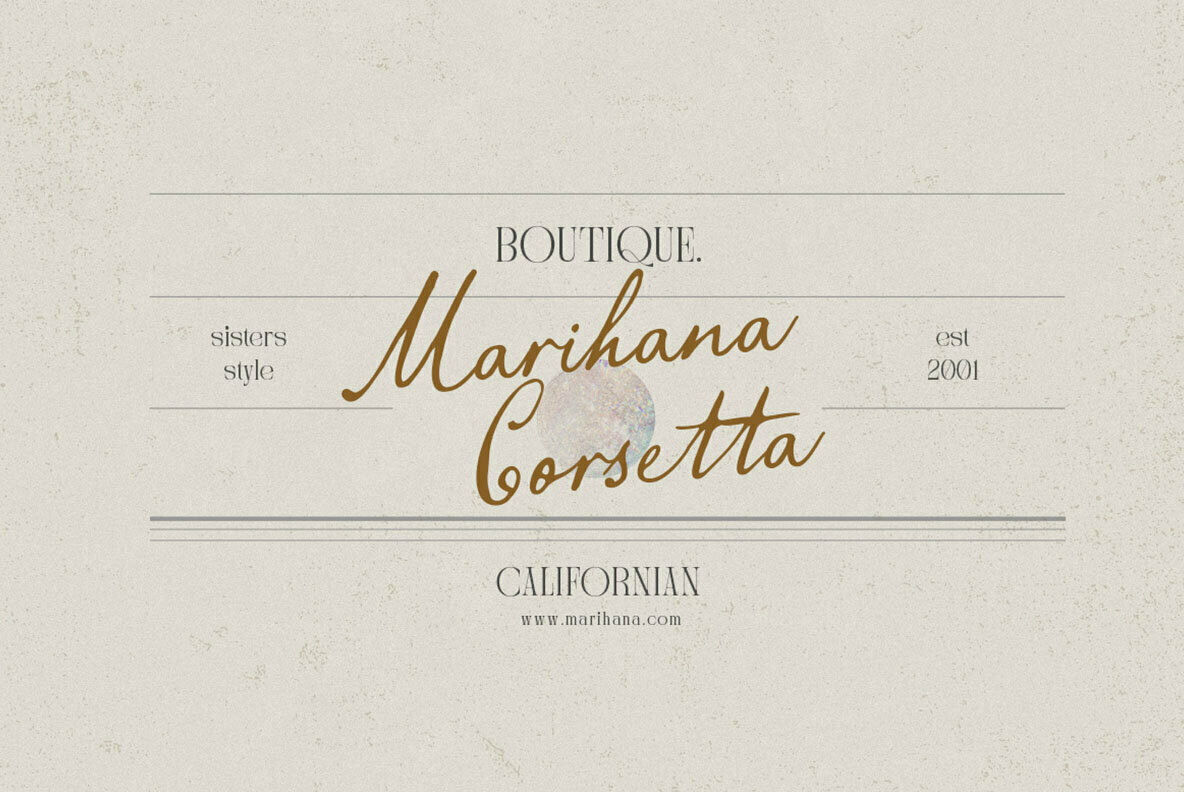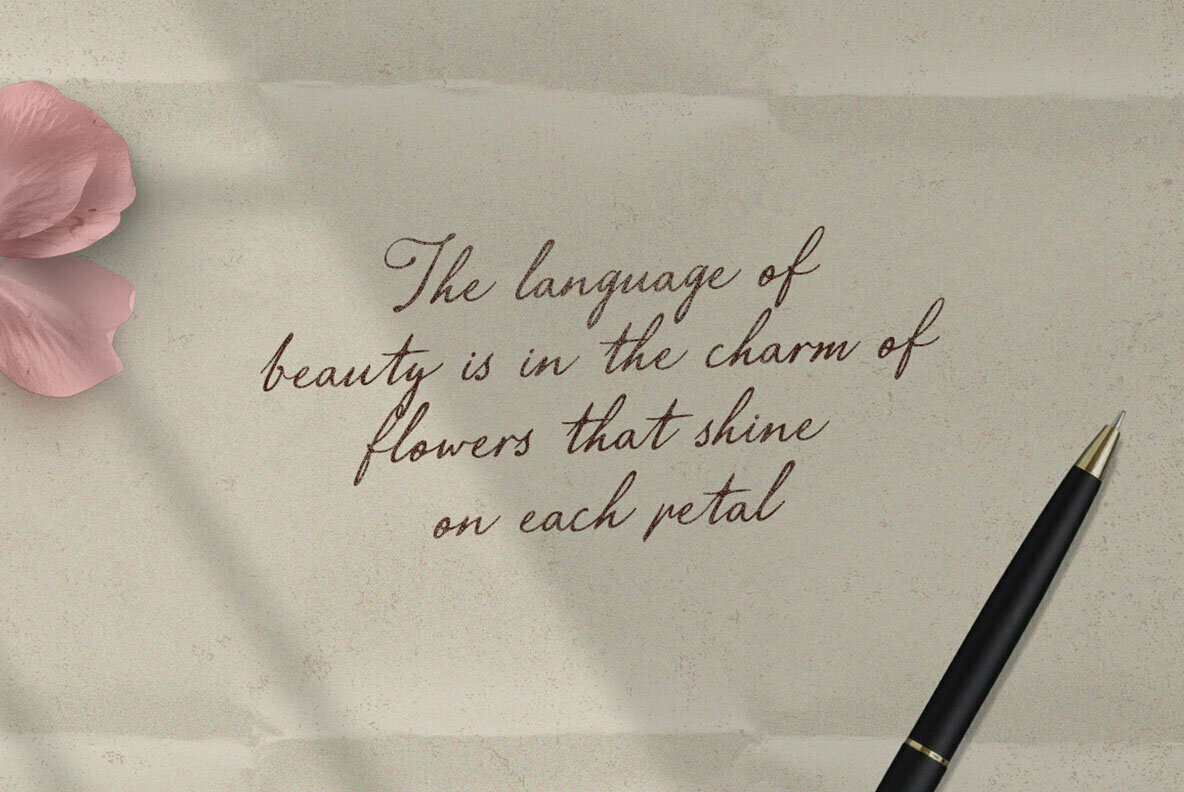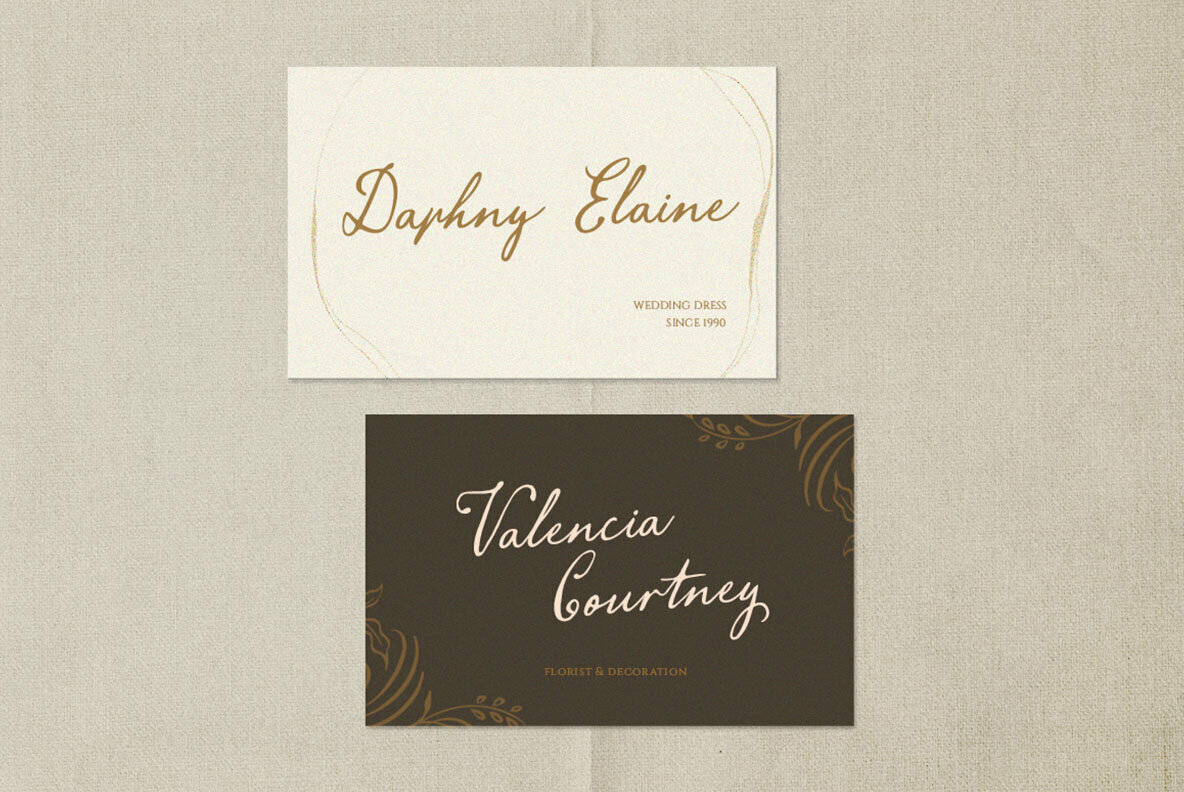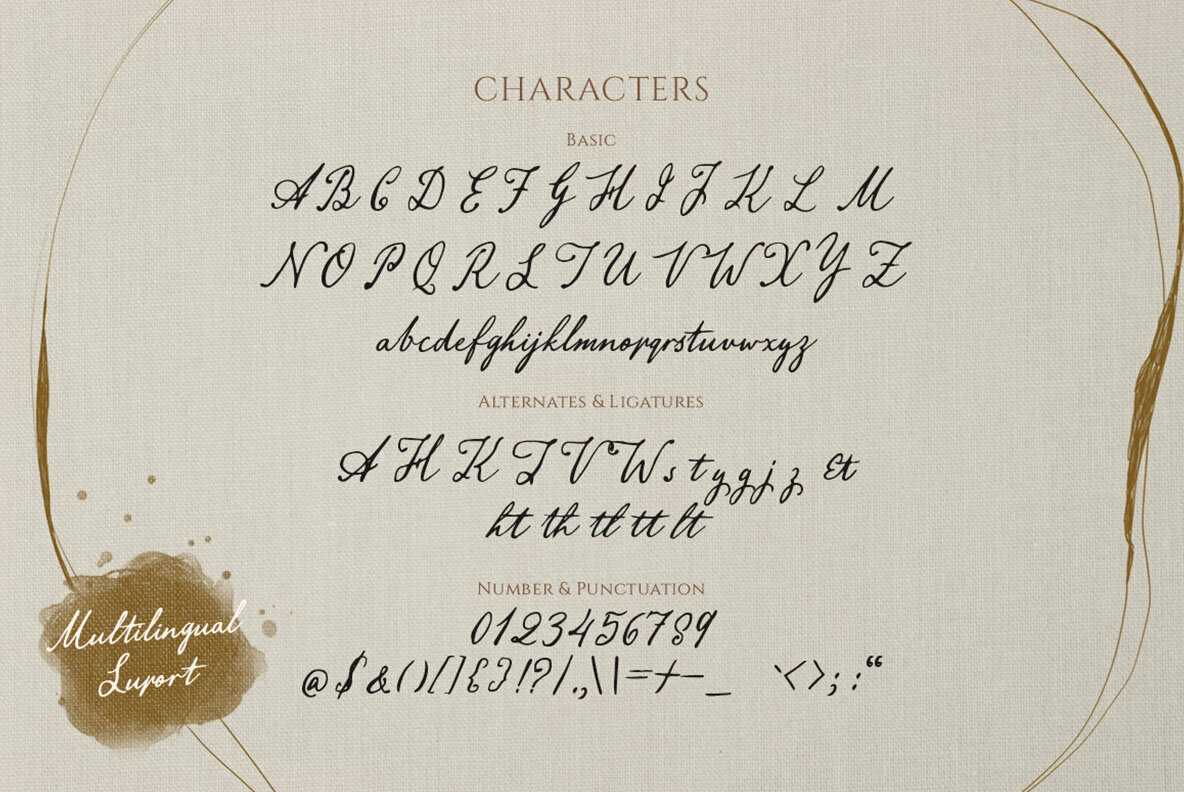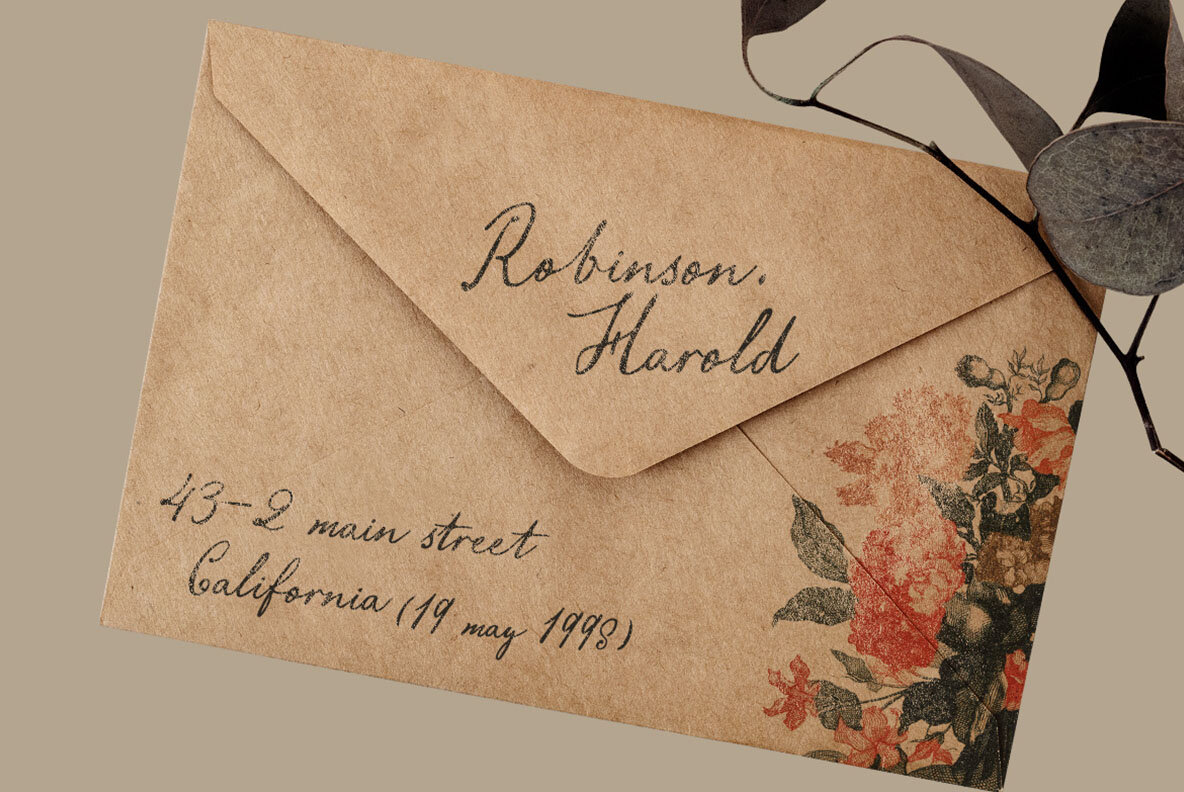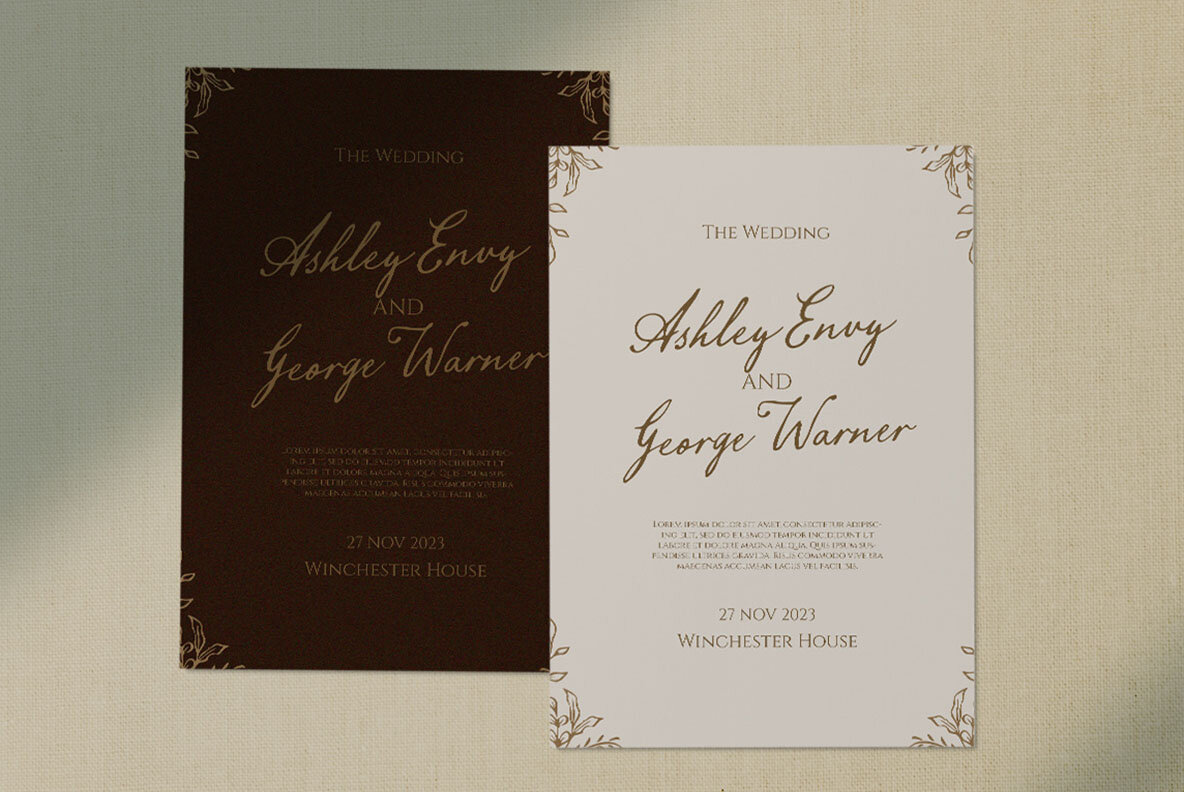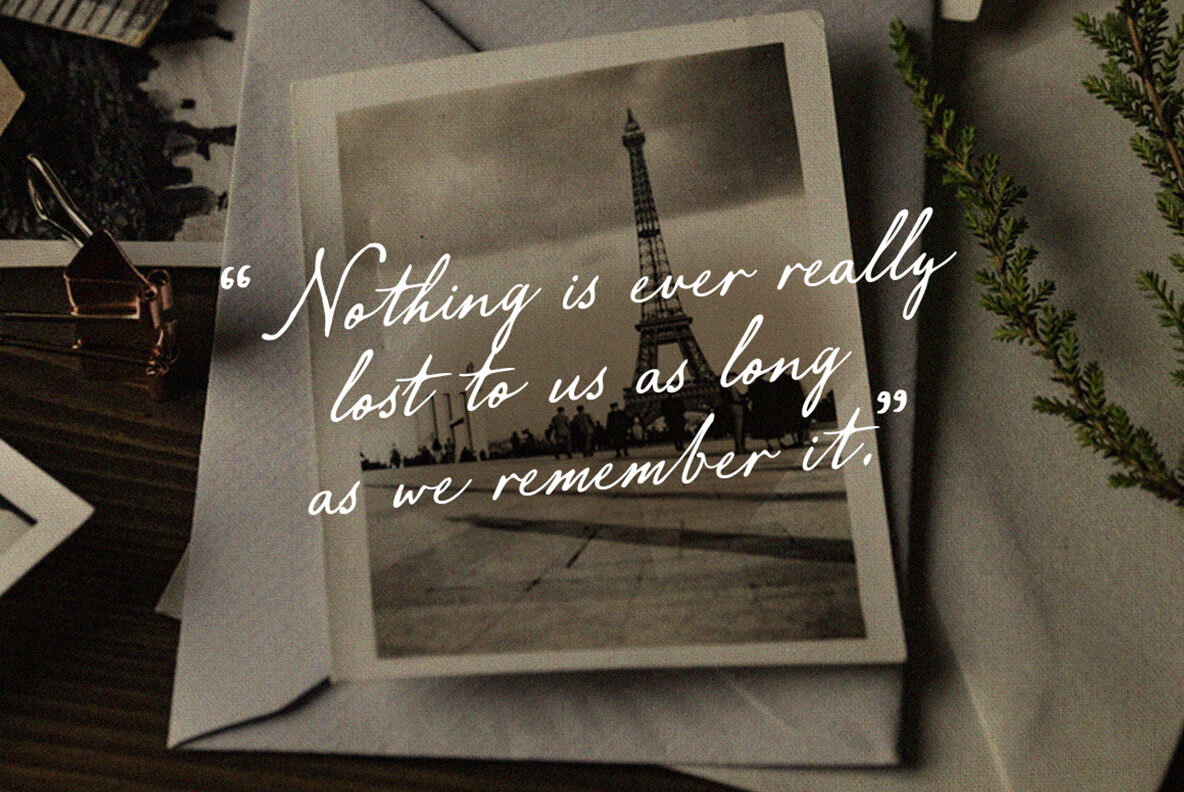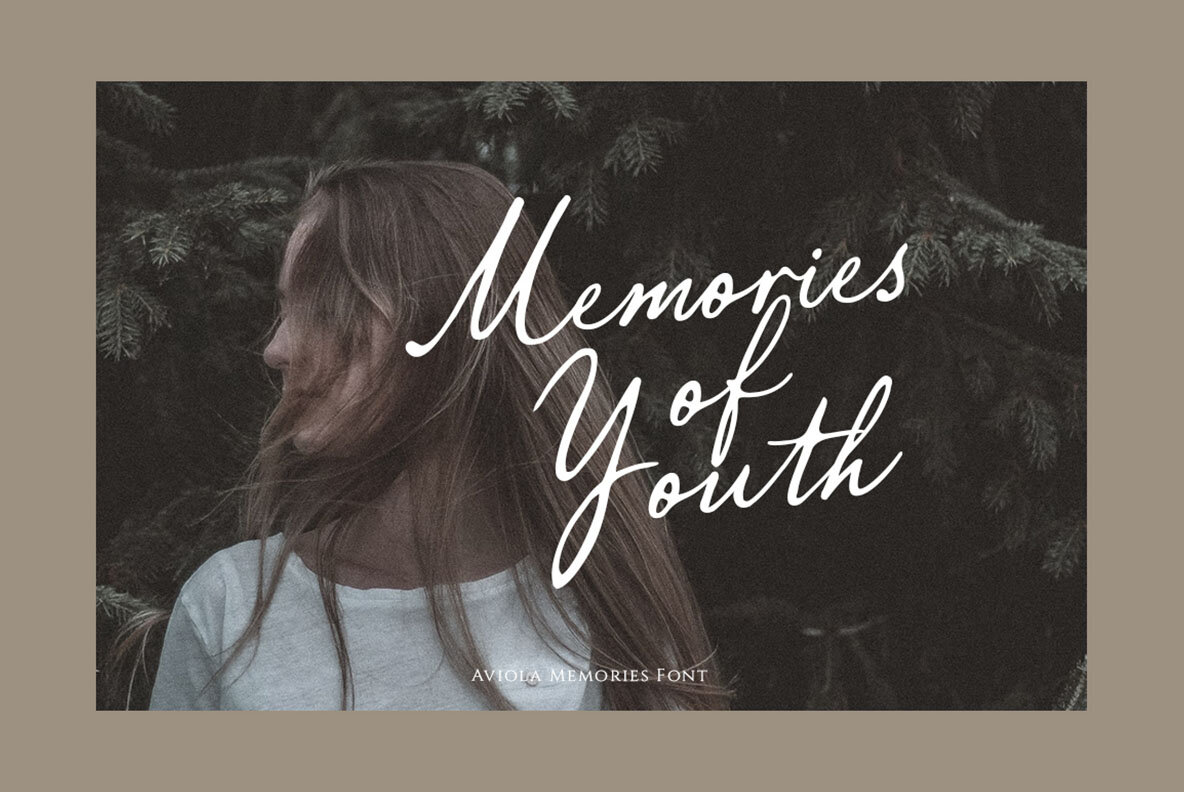
Aviola Memories Font
Aviola Memories is a script font based on authentic hand writing with natural signature style. This type of font perfectly made to be applied especially in logo, and the other various formal forms such as invitations, labels, logos, magazines, books, greeting / wedding cards, packaging, fashion, make up, stationery, novels, labels or any type of advertising purpose.
- Numbers and Punctuation
- Alternates and Ligatures